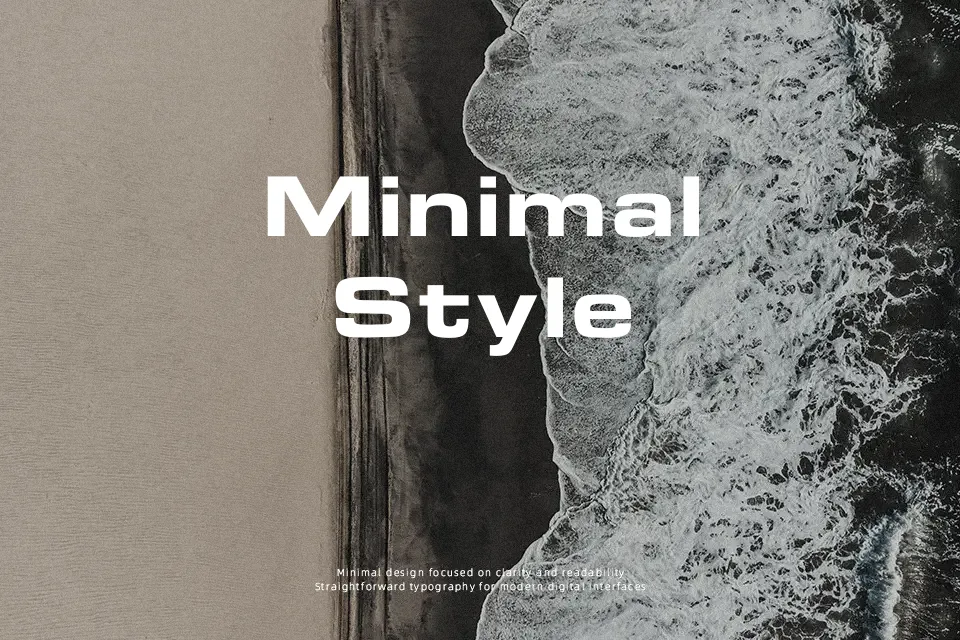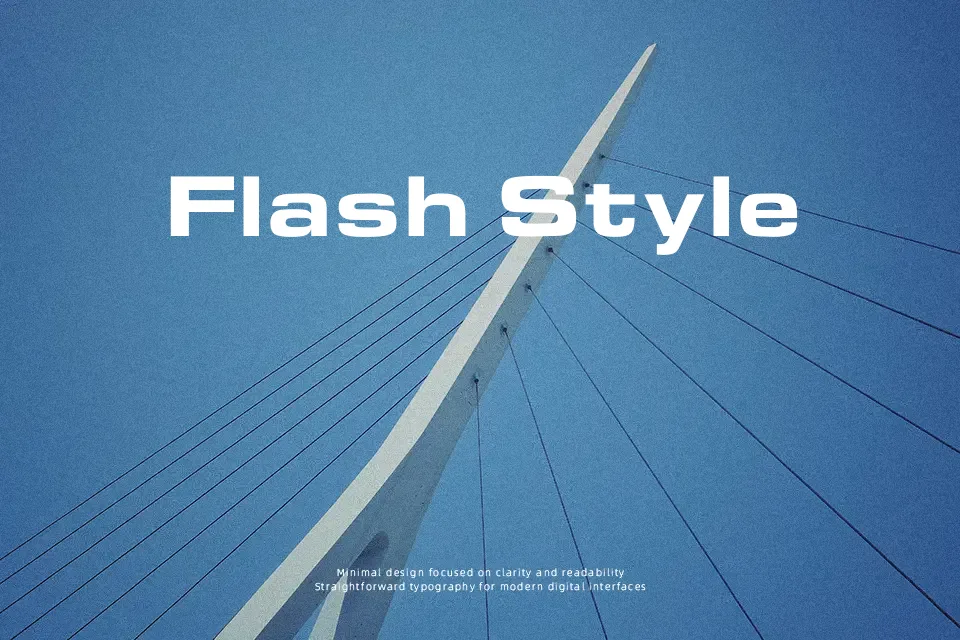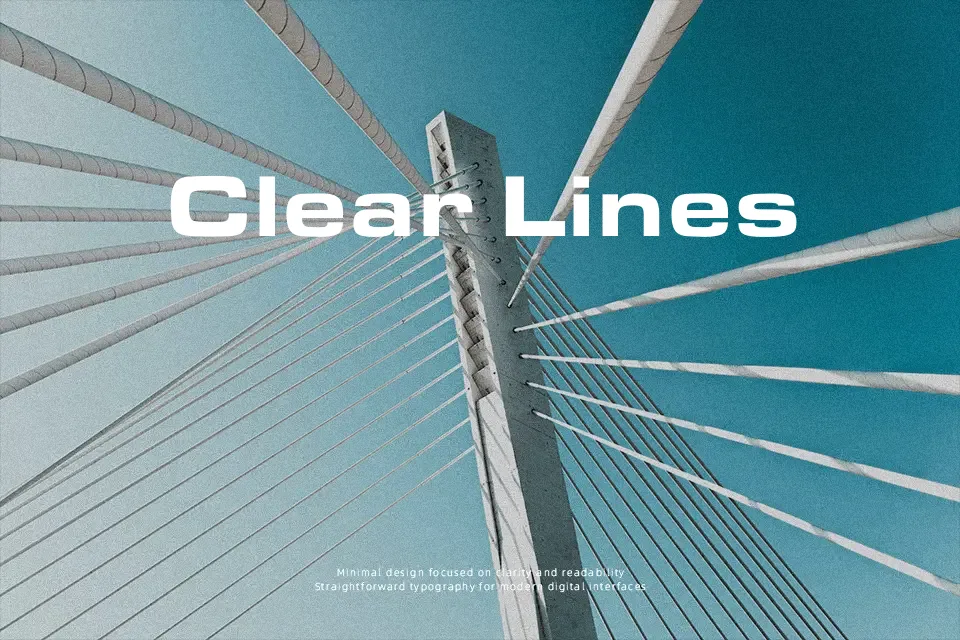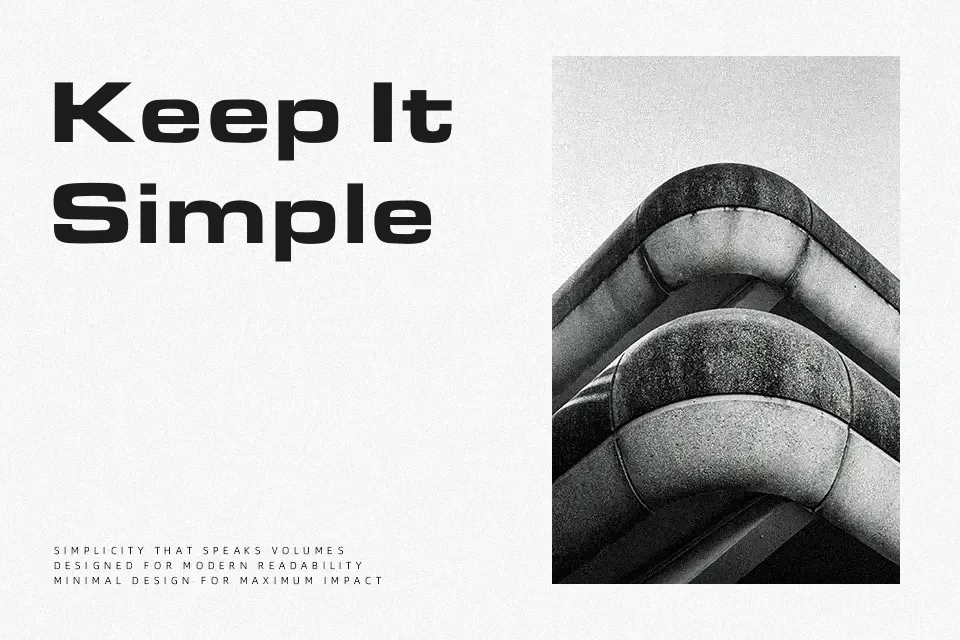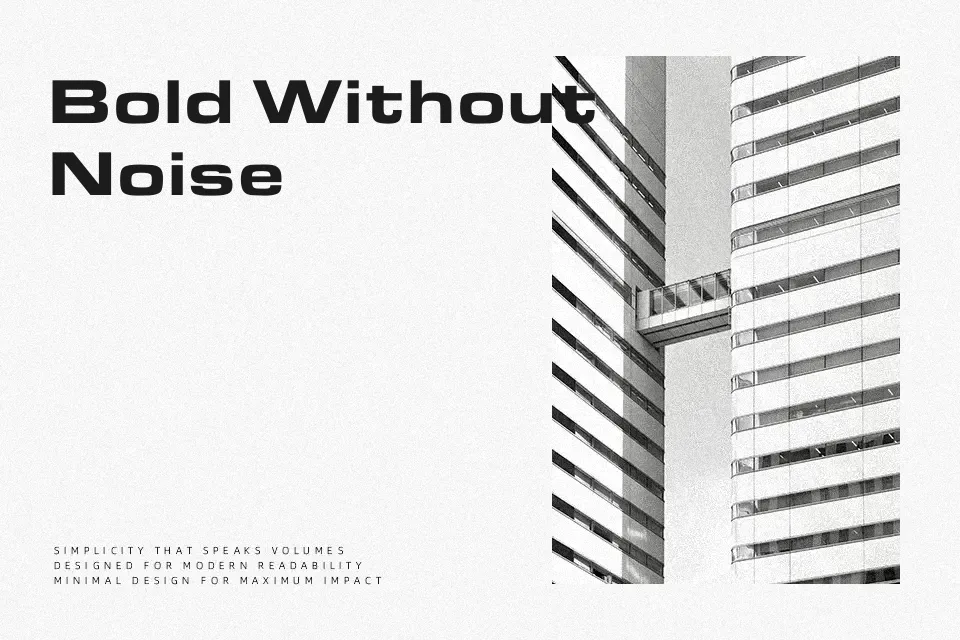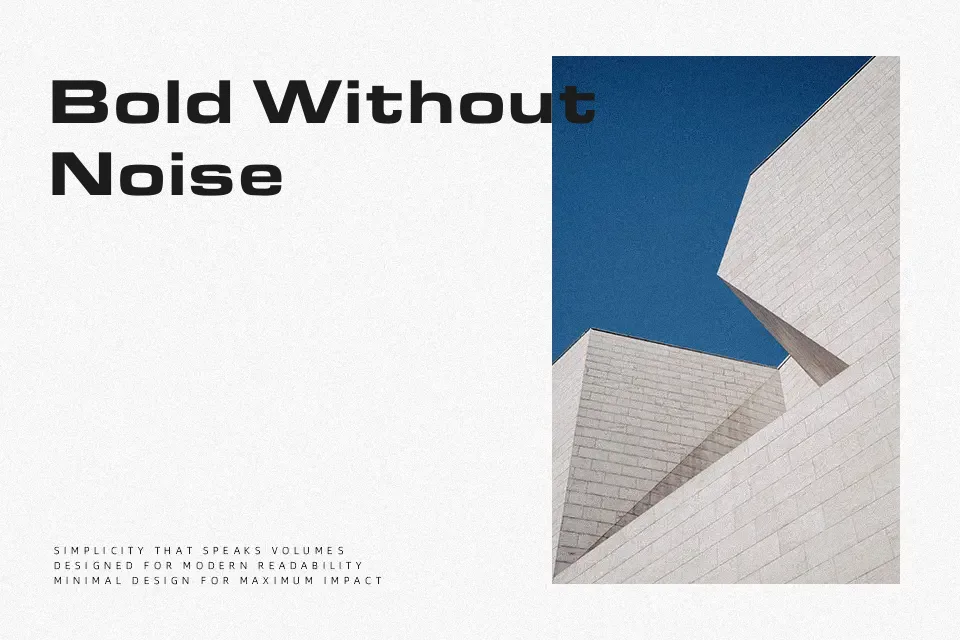
Eurostile Extended Font
Eurostile Extended carries an undeniable retro-futuristic charm. The letterforms are built on squarish geometry with distinctly rounded corners, strongly resembling the cathode-ray tube television sets of the mid-20th century. Its wide, expanded proportions and structured strokes give it a highly technical and dynamic mechanical presence that feels incredibly solid.
This architectural sensibility makes it an exceptional typographic tool for space-age sci-fi movie posters, contemporary tech startup logos, and bold structural headlines. It completely falters, however, in dense body text scenarios; the expanded letter widths stretch the reader’s eye too far across the page, making long paragraphs fatiguing to read. Compared to standard geometric sans serifs, it feels significantly more grounded and expansive.
– sci-fi movie posters
– tech hardware branding
– structural logo design
– aerospace agency graphics
– lengthy magazine articles
– mobile app body text
– traditional wedding invitations
– compact packaging labels
Perfect for branding, film, and headline, with a bold and display style.